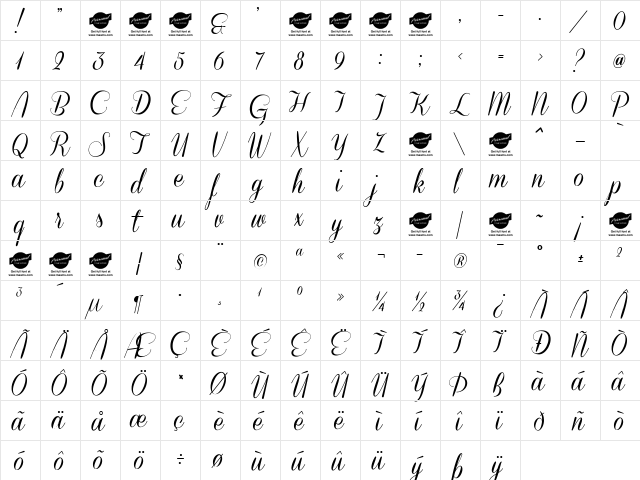
Coneria Script Demo Regular Font Preview
Coneria Script Demo Regular
Coneria Script Demo Regular Font Details
Design Context for Coneria Script Demo Typeface
Coneria Script Demo flows with the natural rhythm of handwritten lettering, making it ideal for designs that call for warmth and personal expression.
Font Pairing: Combine Coneria Script Demo with a simple geometric sans for maximum contrast — the tension between flowing curves and clean structure is a classic typographic pairing.
Pro Tip: Pair Coneria Script Demo with a clean sans-serif for supporting text. The contrast between fluid script and geometric structure creates an elegant typographic hierarchy.